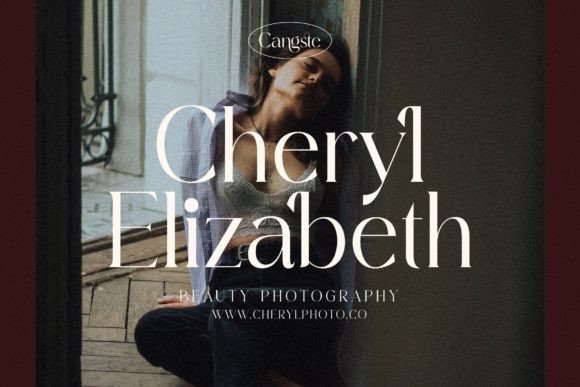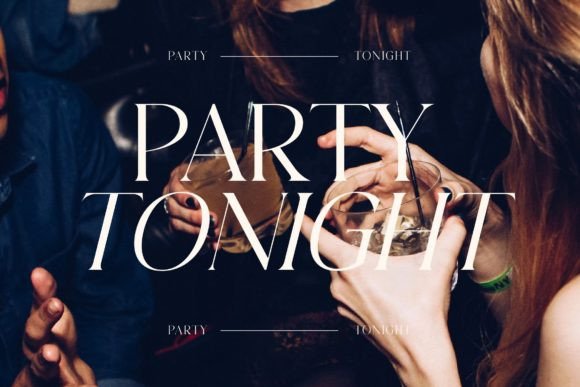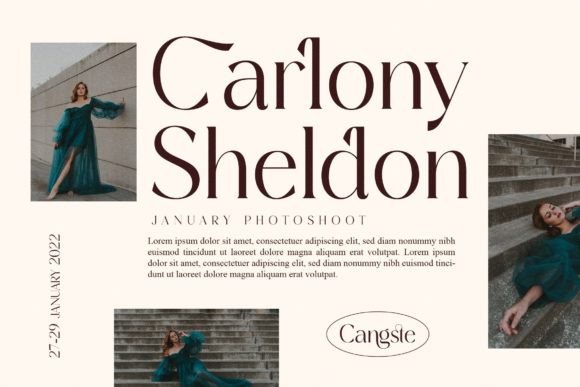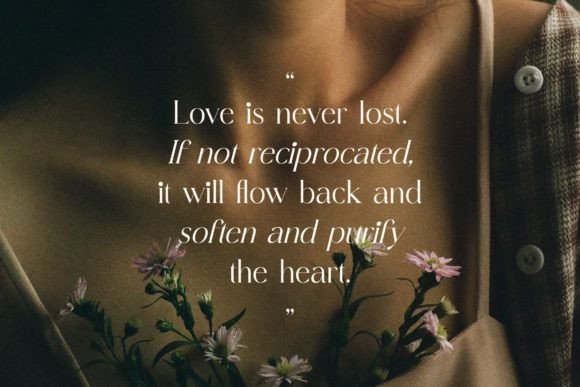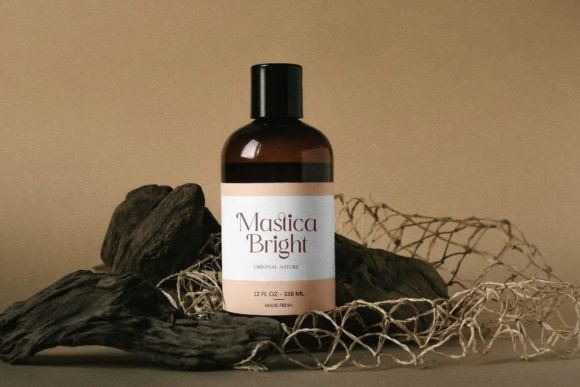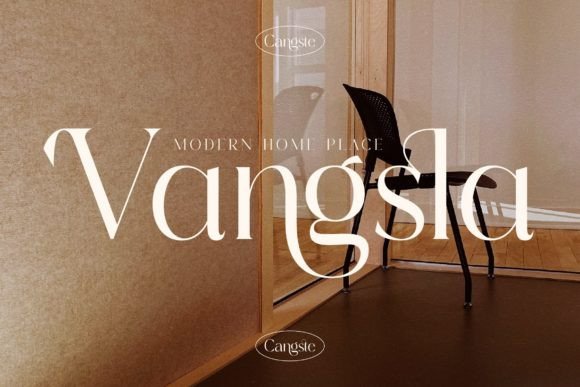
Discover the Timeless Elegance of Cangste Font
As designers, we’ve all been there – staring at a blank canvas, trying to conjure up the perfect font to bring our vision to life. It’s that moment of frustration and excitement when everything falls into place, and the words start flowing. For me, it was when I stumbled upon the Cangste Font – a modern and classic serif typeface that exudes sophistication and refinement.
Whether you’re designing a luxury logo, a book title, or a fashion brand, the Cangste Font is the perfect choice. Its unique style and modern look make it a valuable asset for designers looking to create stunning visuals. With its elegant and refined feel, the Cangste Font is sure to elevate any project and leave a lasting impression.
Cangste Font Key Features
- Unique Characteristics: Cangste Font features a unique blend of modern and vintage elements, with intricate details and flourishes that make it stand out from other fonts.
- Font Style: Cangste Font is available in multiple styles, including Regular, Bold, Italic, and Bold Italic, allowing designers to create a range of visual effects.
Cangste Font Review
First off, I’ve got to say that the Cangste Font has some great qualities that make it a solid choice for designers. ✨ The font’s unique, hand-drawn style gives it a lot of character and can really add some personality to your designs. It’s also very legible, making it a great choice for body text. Additionally, the font has a wide range of weights and styles, giving you a lot of flexibility when it comes to choosing the right look for your project.
- Unique, hand-drawn style that adds character to designs
- Legible and easy to read
- Wide range of weights and styles
That being said, there are some limitations to the Cangste Font that might make it not suitable for every project. ⚠️ For one, the font can be a bit too ornate for some designs, and may not be the best choice for projects that require a more minimalist aesthetic. Additionally, the font’s unique style can sometimes make it difficult to read in smaller sizes or in certain contexts.
Overall, I think the Cangste Font is a great choice for designers who are looking for a unique and character-filled font. While it may not be the best choice for every project, it’s definitely worth considering for projects that require a bit of flair and personality.
Tips for Getting the Most Out of Cangste Font
For the best results, use Cangste Font in bold or italic styles to add emphasis to your text.
Experiment with different font sizes and colors to create a unique visual effect.
Combine Cangste Font with other creative elements, such as illustrations or graphics, to add interest to your design.
Cangste Font is ideal for creative projects, such as:
Graphic design and branding
Typography and lettering